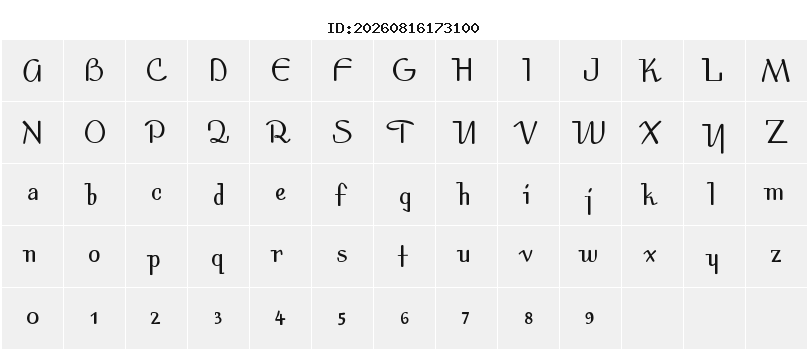
• Font Name: Spirit
• Designer: Digital Graphic Labs
• Description: Smooth curves and rounded bar serifs help give Spirit its artistic and cultural look.
About Spirit.ttf
Spirit.ttf is a modern, elegant sans-serif font designed for ultimate readability and visual harmony. Perfect for branding, headlines, web design, and print materials.